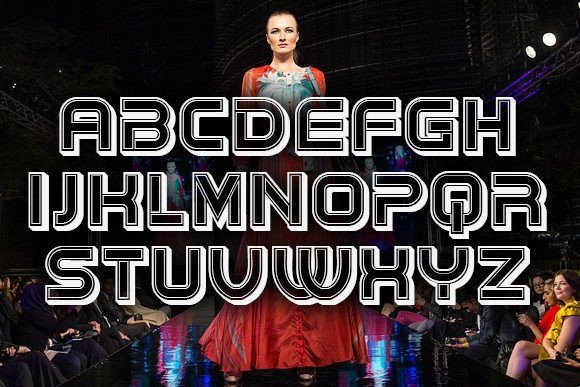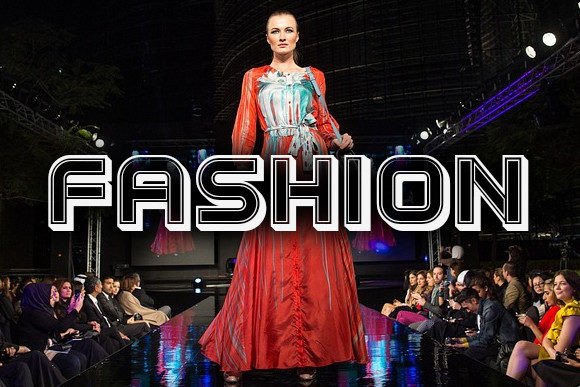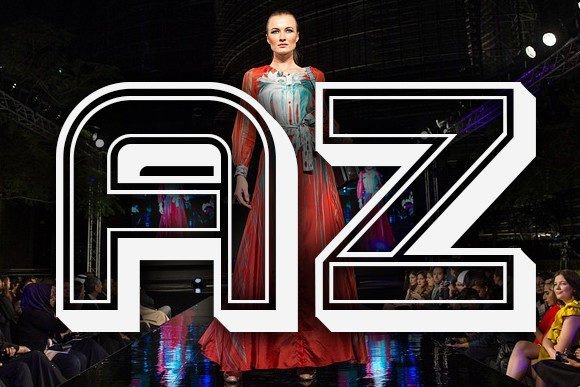
Introduction to Moda Font
Have you ever been in the midst of a creative project, pouring over design options, and finally finding that one font that brings it all together? For designers, that moment is pure magic. It’s the difference between a design that’s just good and one that’s truly exceptional. And that’s exactly what the Moda Font is all about.
This elegant 3D typeface is more than just a pretty face – its round curves and slight angles make it the perfect choice for adding a touch of sophistication to your designs. Whether you’re working on a poster, a shirt, or a headline, Moda Font is the perfect design resource to elevate your creative vision.
Key Features of Moda Font
- Perfect for designers looking for a versatile and elegant font to elevate their creative projects.
Honest Review: Moda Font
I’ve had the chance to work with the Moda Font, and I’m excited to share my thoughts on this design resource. The first thing that caught my eye was the sleek, modern aesthetic that this font offers. It’s perfect for any creative project that requires a touch of elegance and sophistication.
One of the things that works well with Moda Font is its versatility. It can be used for both digital and print design, and its high quality ensures that it will look great on any medium. I also appreciate the fact that it’s available for free download, making it an excellent option for designers on a budget.
Some of the key features of Moda Font include:
- High-quality design for both digital and print projects
- Transparent background for seamless integration into any design
- Modern, sleek aesthetic perfect for creative projects
While Moda Font is an excellent choice for many designers, there are a few limitations to consider: ⚠️
- Only available in a limited number of font weights
- No bold or italic variations
Overall, I’m impressed with the Moda Font, and I think it’s a great addition to any designer’s toolkit. With its high-quality design and free download, it’s an excellent option for designers on a budget. ✨
Tips for Getting the Most Out of Moda Font
To get the most out of Moda Font, use it with a high-quality image or design element to create a visually appealing combination. You can also experiment with different font sizes and styles to add emphasis to your text.
Moda Font is a versatile design resource that can be used for a variety of creative projects, including brochures, flyers, posters, and social media graphics. It’s also a great option for branding and logo design.